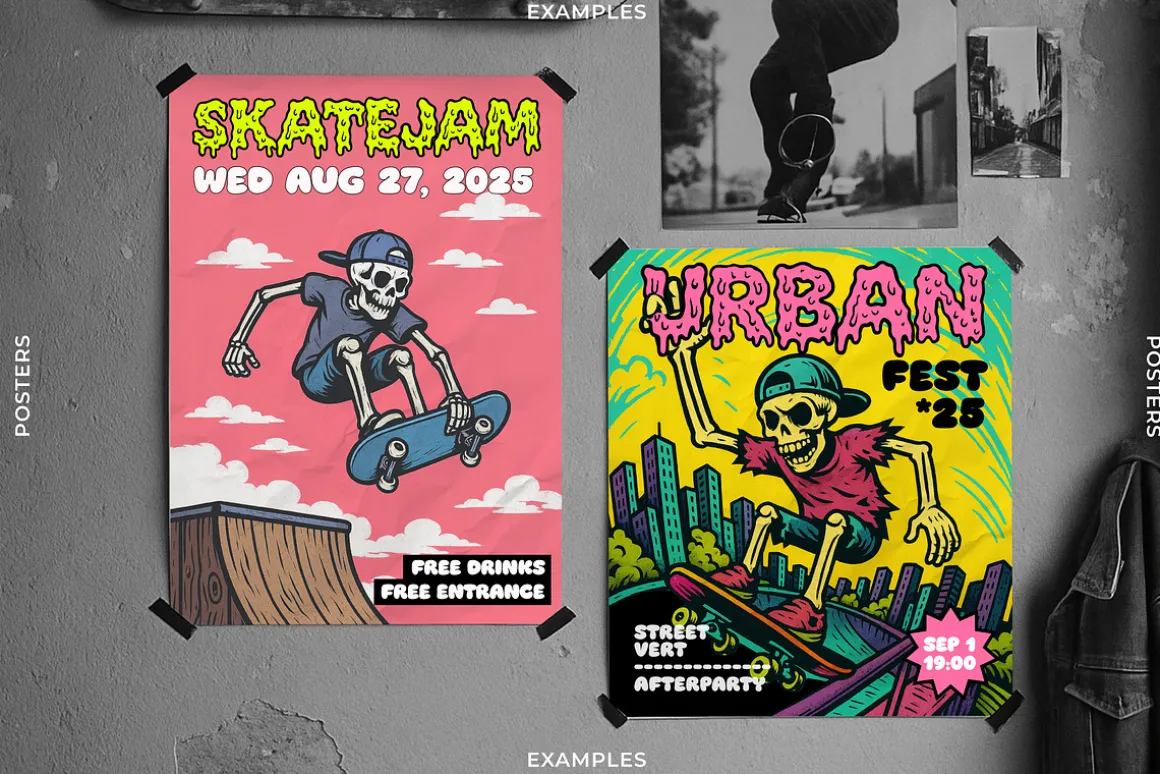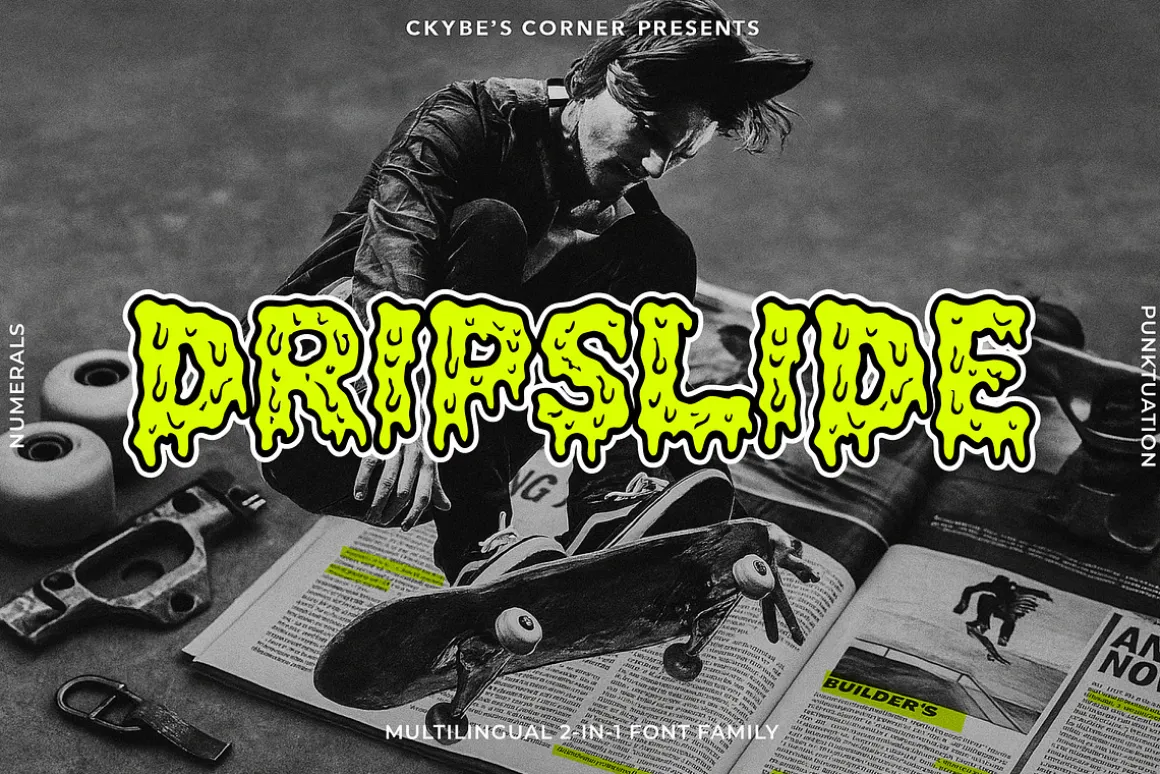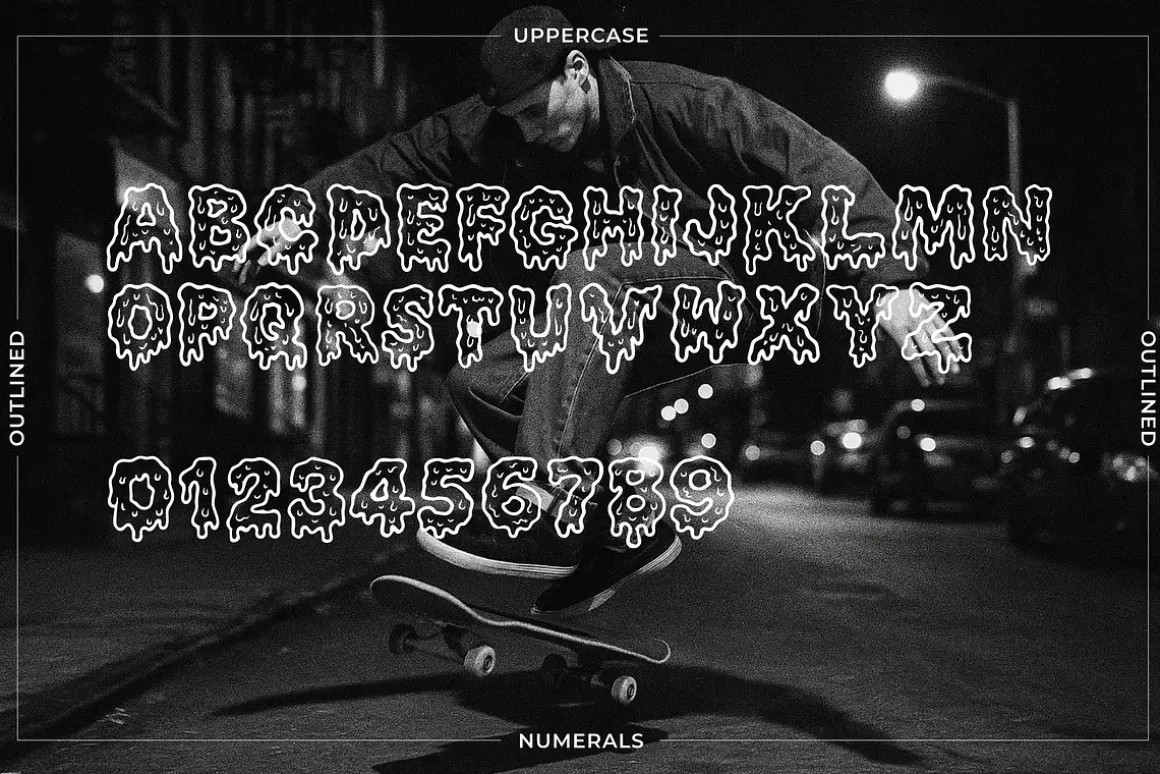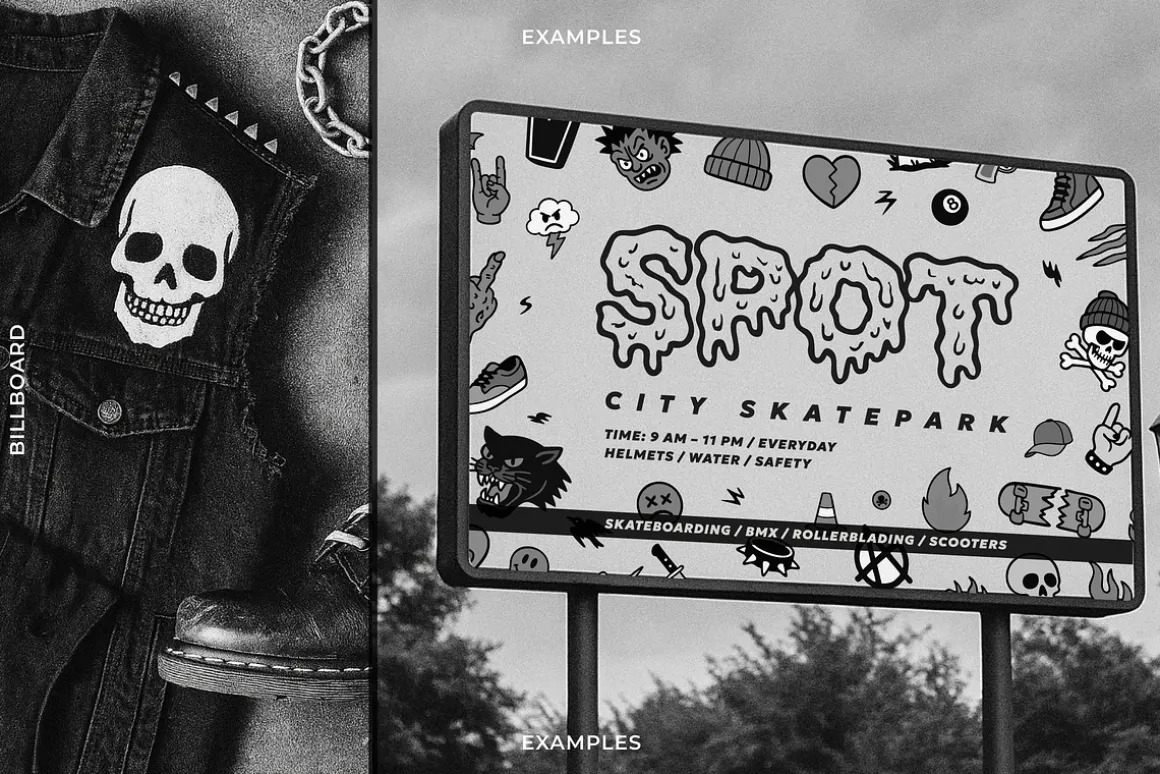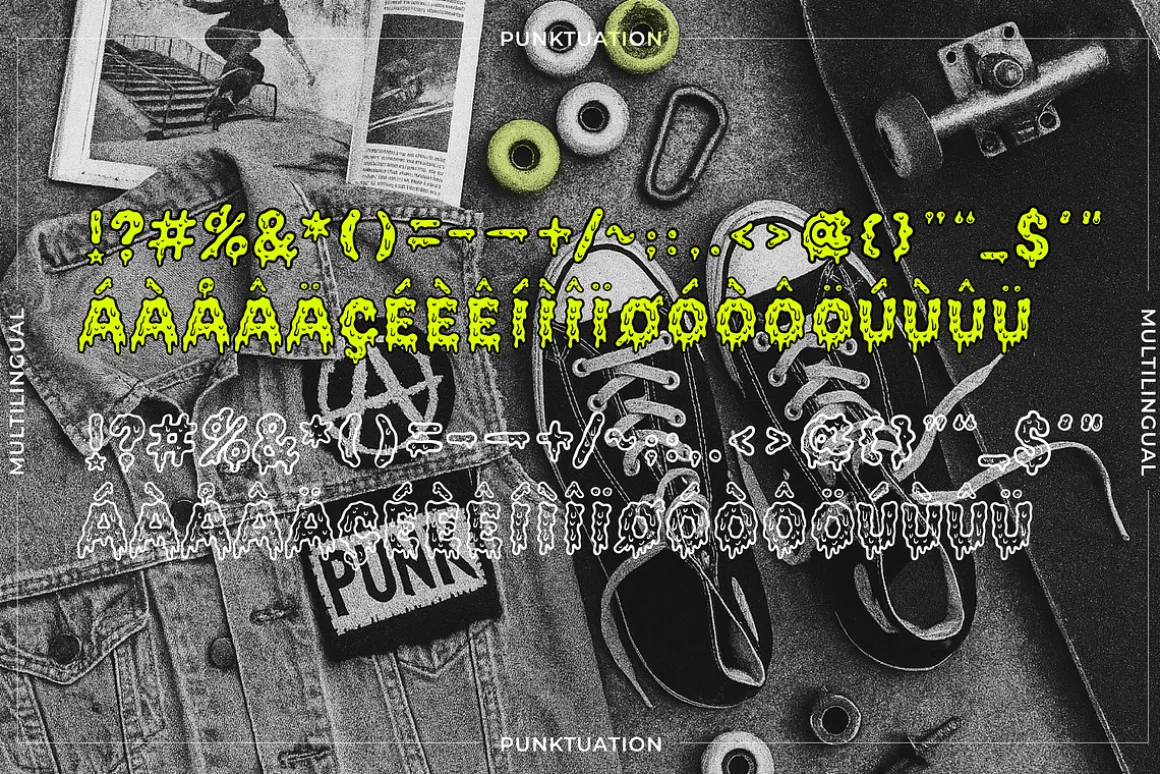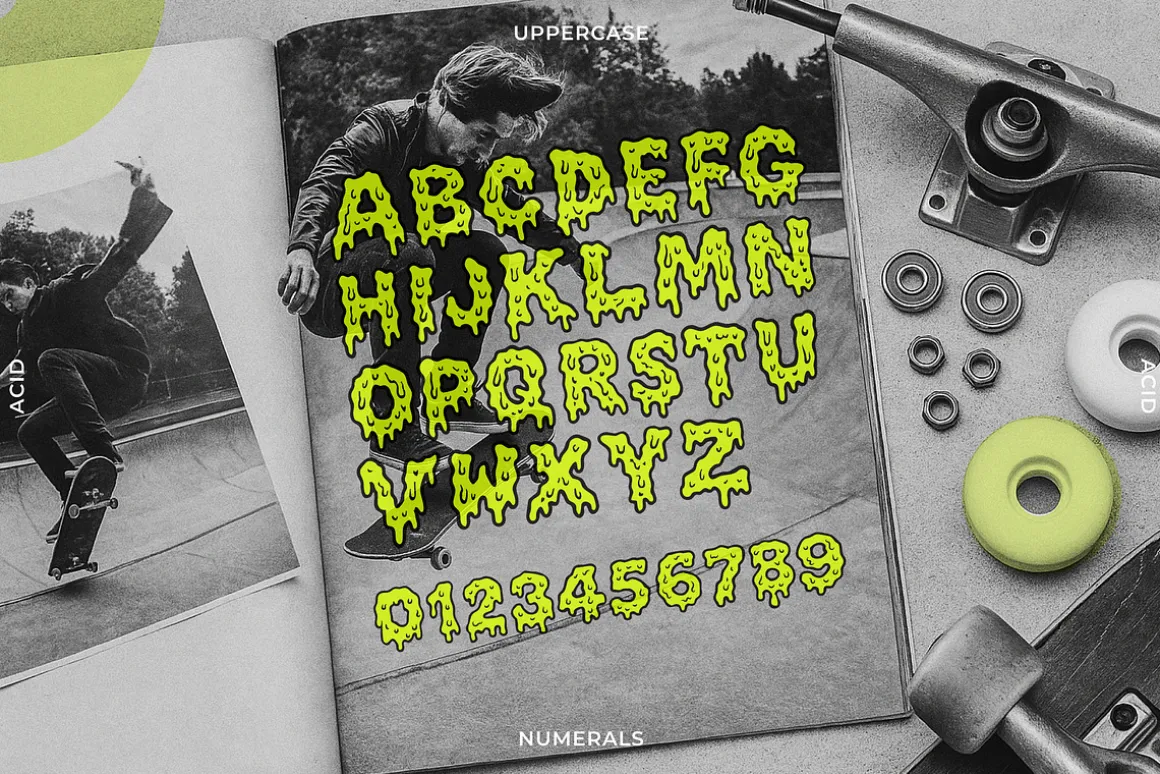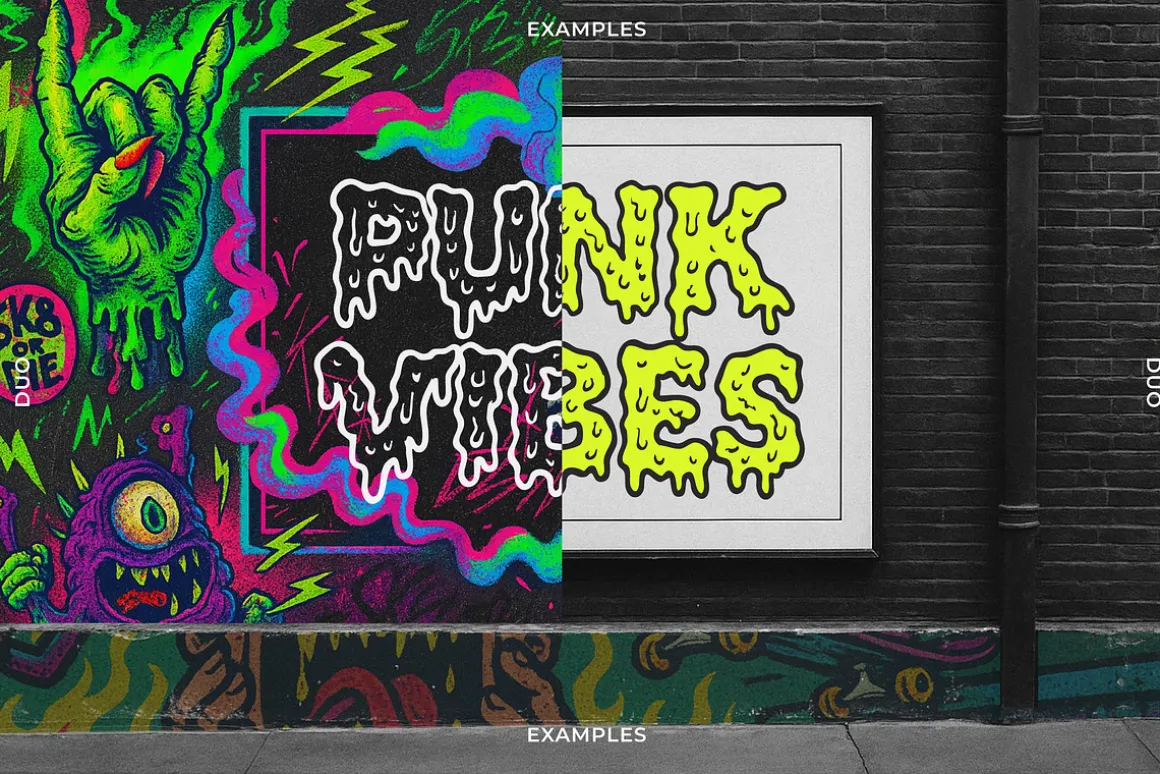
DRIPSLIDE — A Punk-Inspired Skate Font Duo
Dripslide is the font that kicks flip into chaos. A raw and rebellious 2-in-1 font family, made for punks, skaters, designers, and misfits who aren’t afraid to get loud. Channeling 90s skate zines, DIY aesthetics, and the gritty freedom of street culture — this set oozes energy, attitude, and drippy personality.
What’s Inside
- Dripslide Regular
Bold, gooey, grungy — built for attention-grabbing titles, event flyers, packaging, album covers, and more. - Dripslide Acid
A meltdown of toxic punk vibes. Perfect for raw, rebellious design that doesn’t play by the rules.
Features
- All Caps A–Z
- Numerals 0–9
- Full Punctuation
- Multilingual Support
- Two Styles: Solid Acid & Outlined Drip
Perfect for:
- Punk flyers & band posters
- Skateboard brands & zines
- Urban merch & apparel
- Streetwear lookbooks
- DIY tattoo flash sheets
- Halloween or horror vibes
- Retro 90s throwbacks
Let your letters melt off the page.
Skate or die. Drip or slide.
DRIPSLIDE — A font that doesn’t ask for permission.